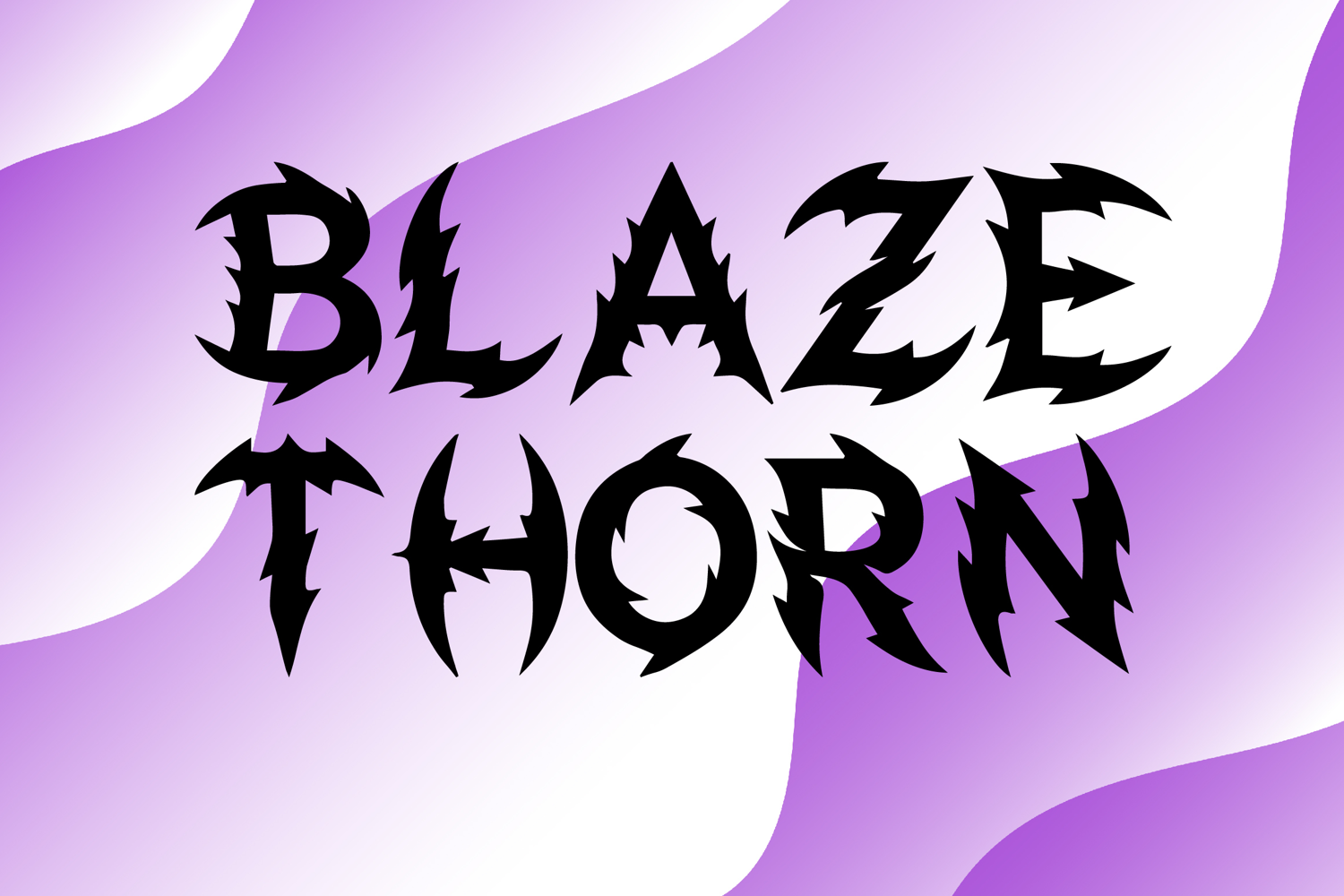
Blaze Thorn
Blaze Thorn is a bold decorative display font with a fierce thorn-inspired style and dramatic edgy character. Its uppercase letterforms feature sharp jagged edges, pointed flame-like details, and wild distorted shapes that create a powerful, rebellious, and eye-catching look. Designed with uppercase letters A–Z and numbers 0–9, Blaze Thorn is perfect for branding, posters, album covers, gaming designs, book covers, logos, and creative projects that need a striking and unforgettable statement.